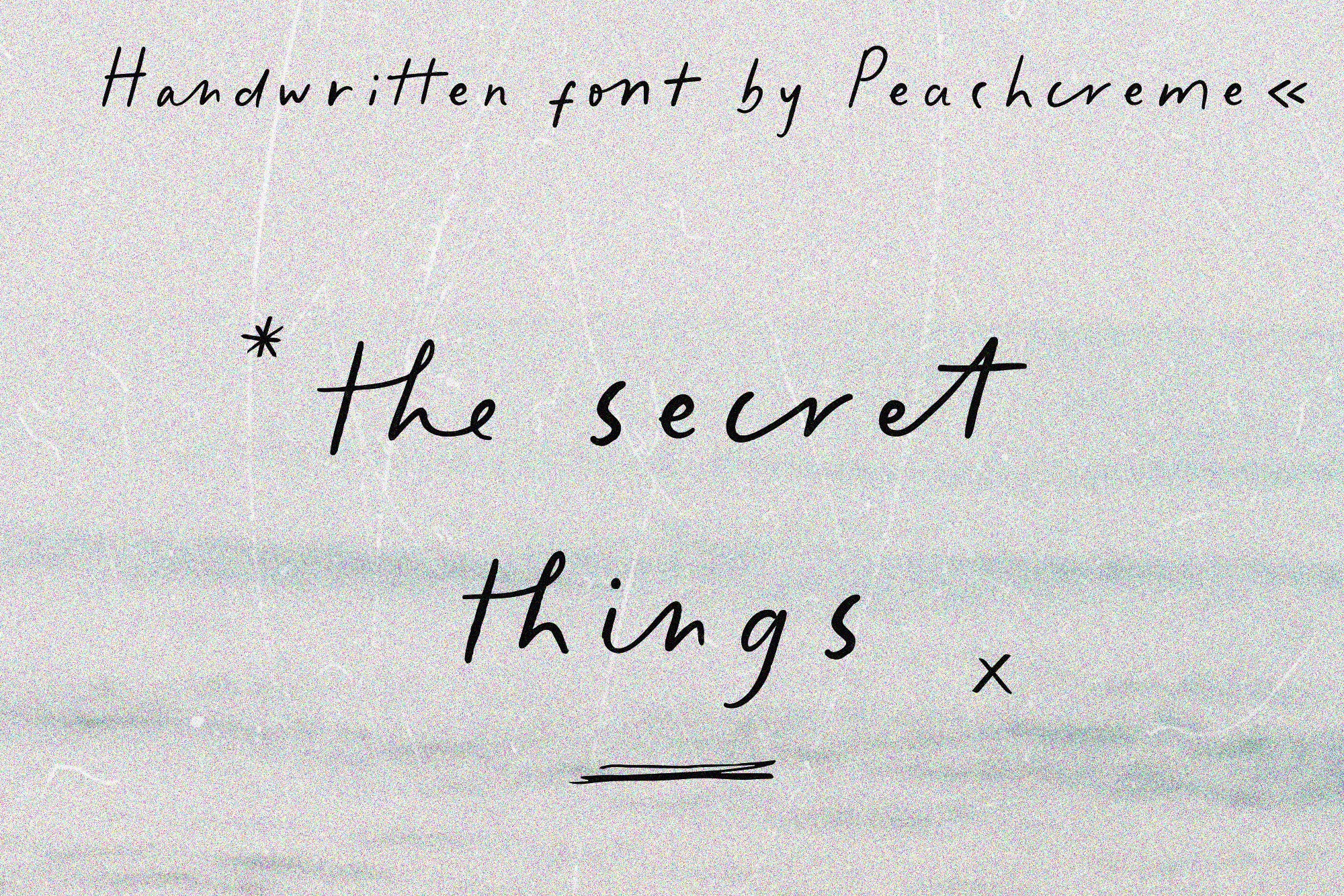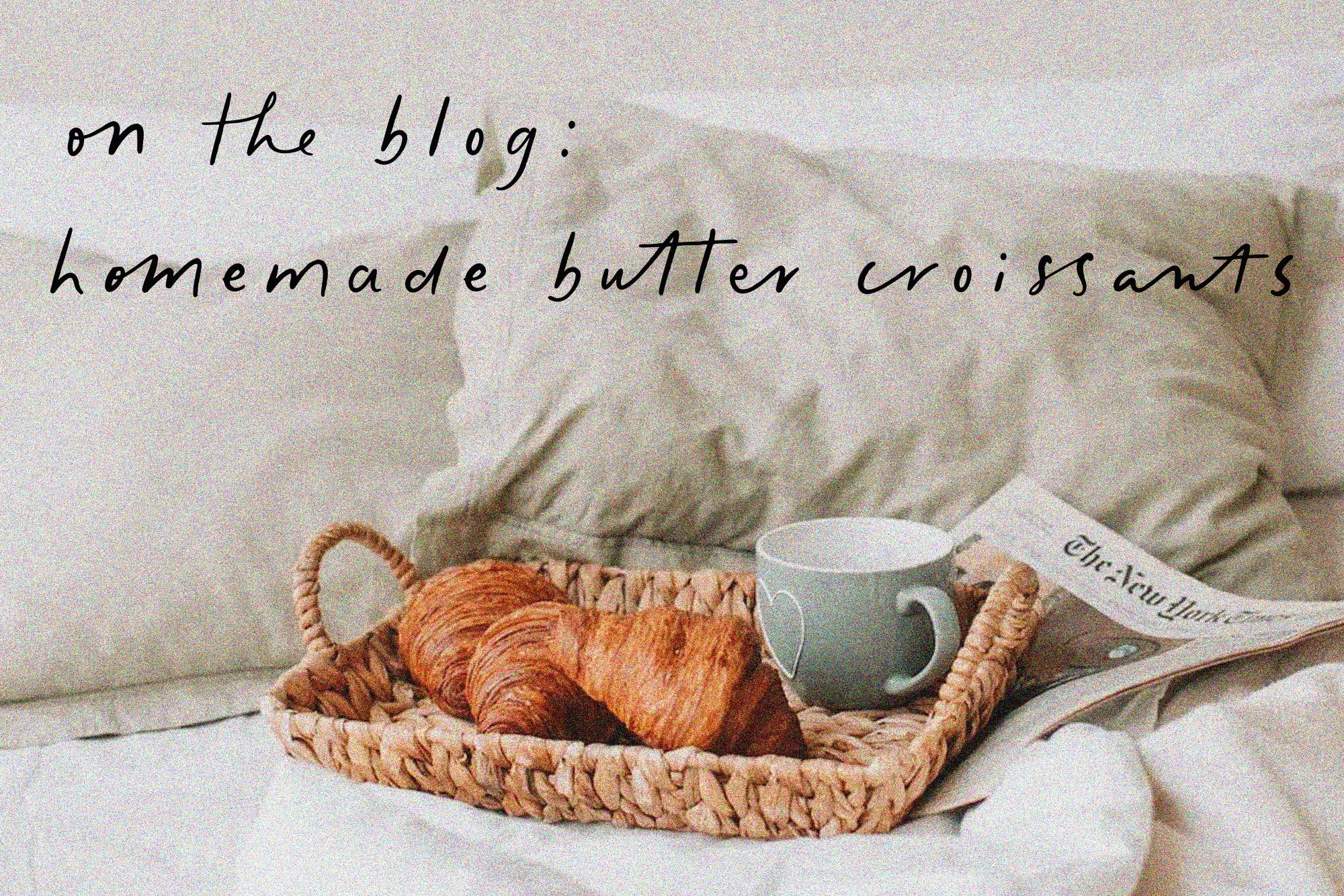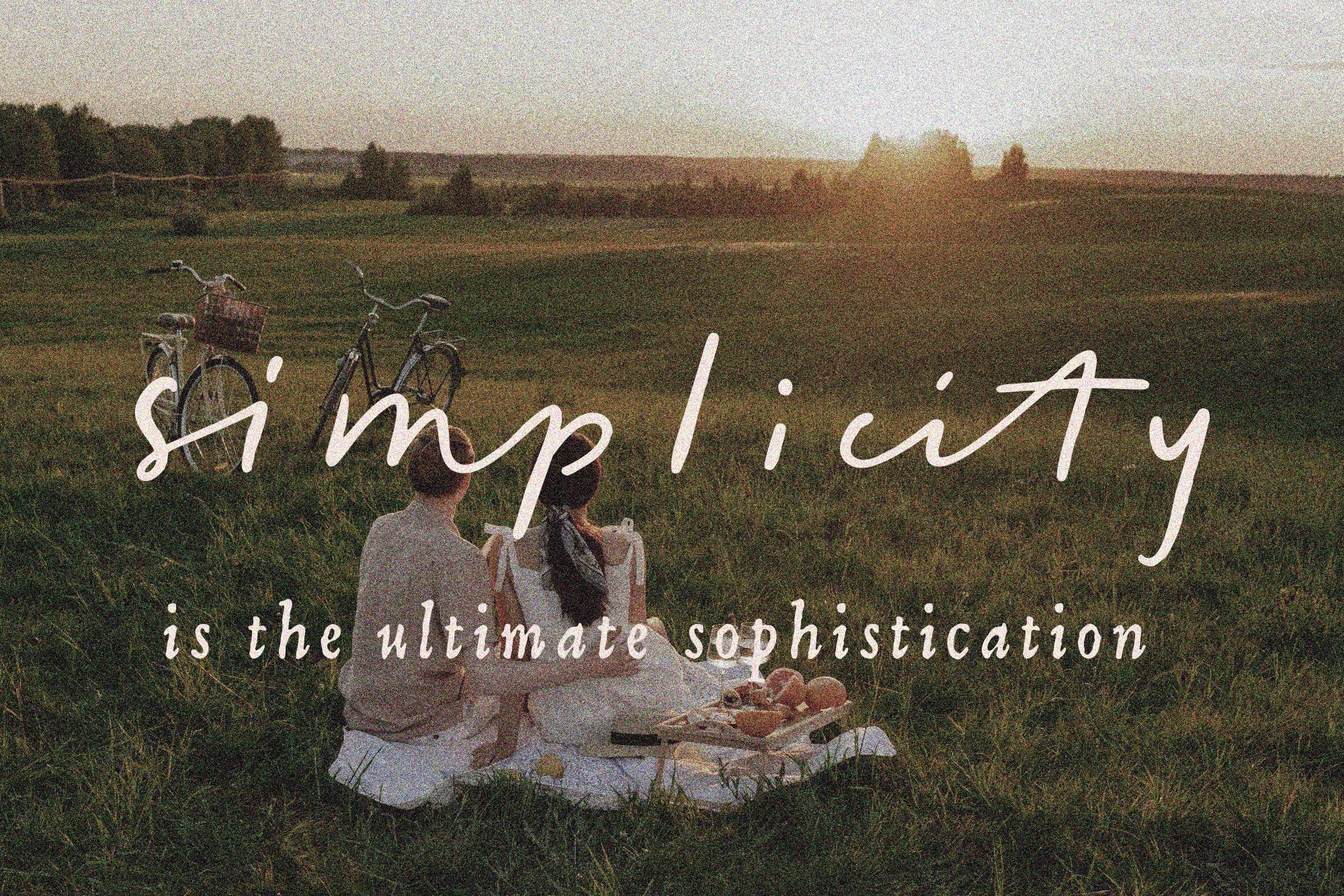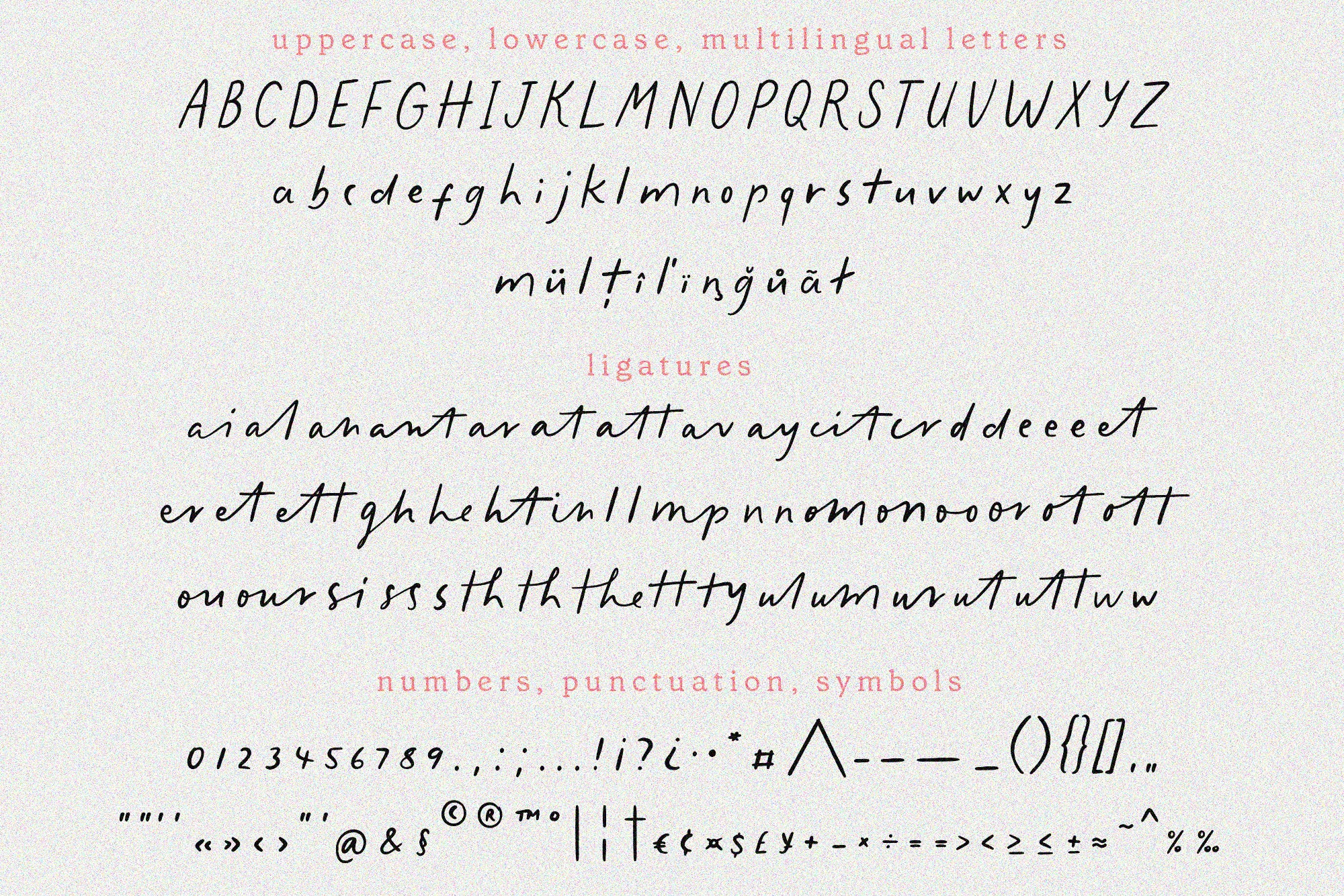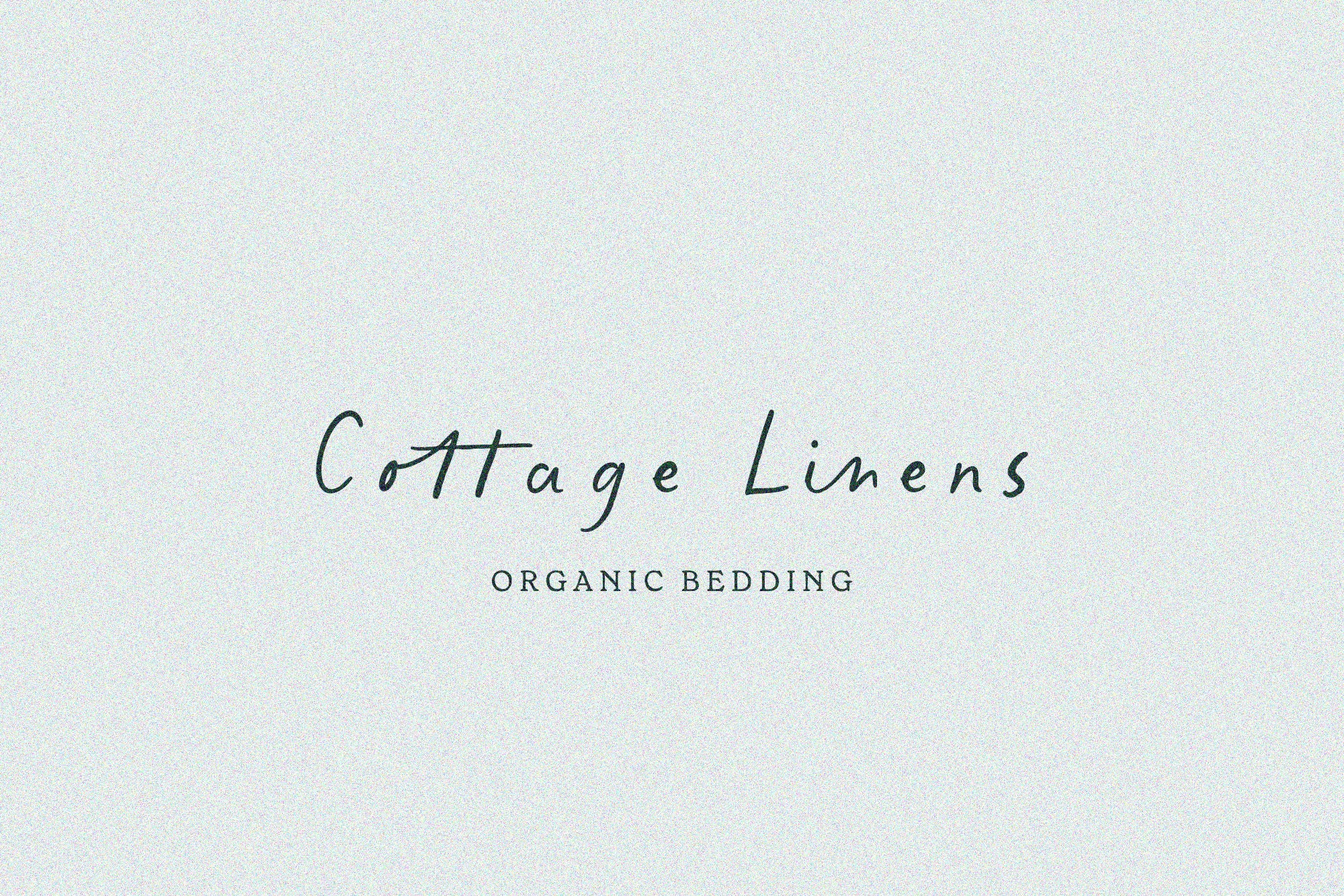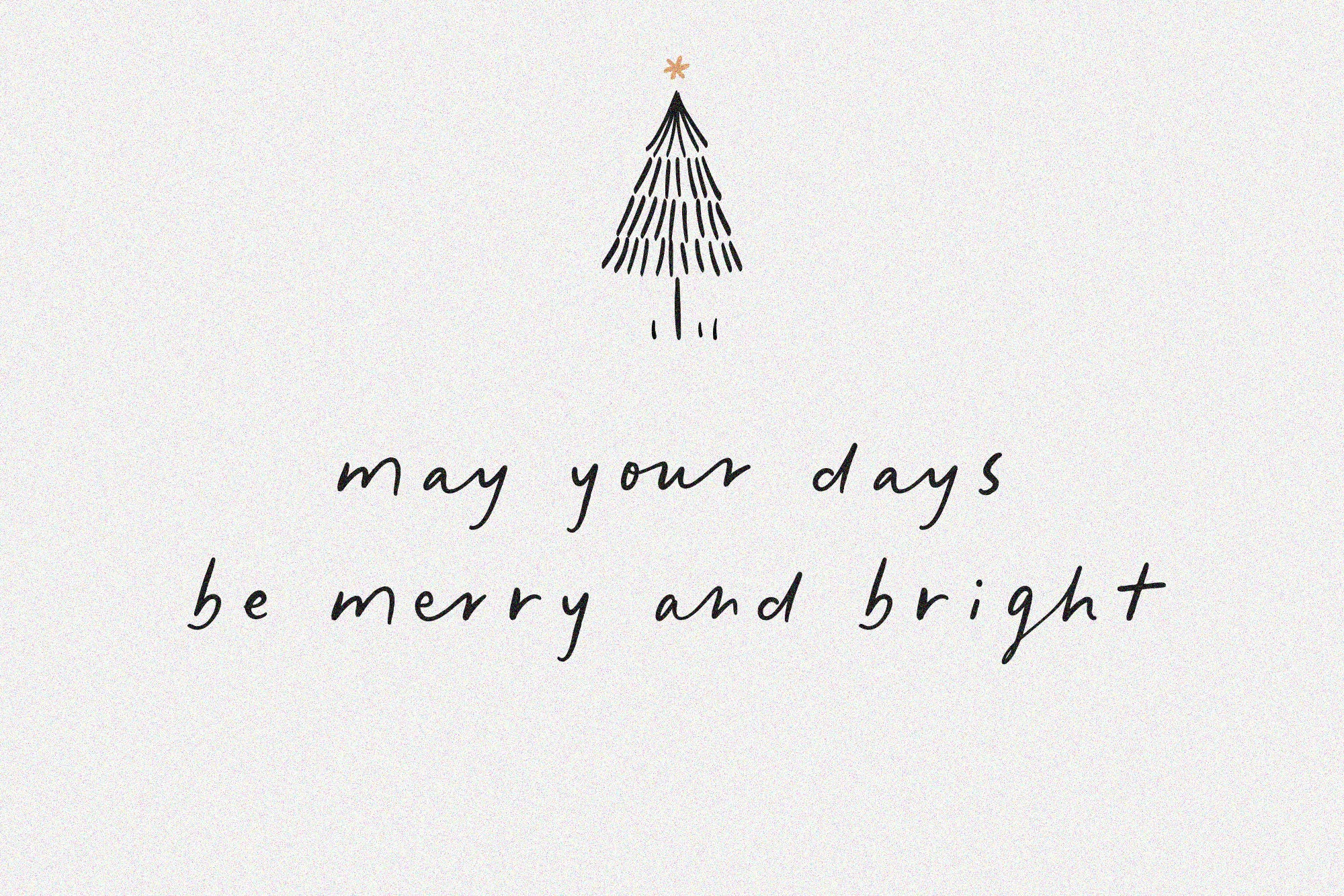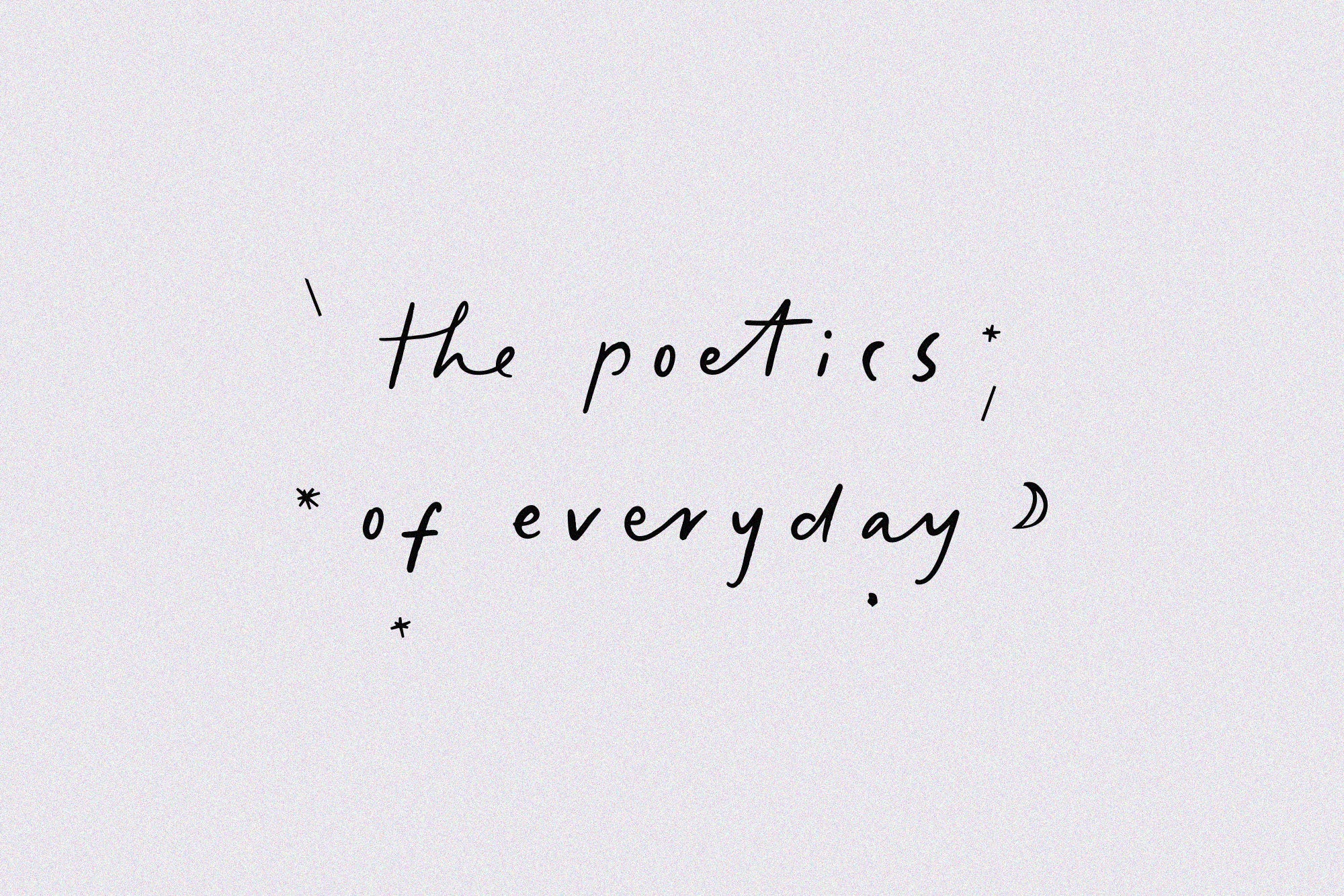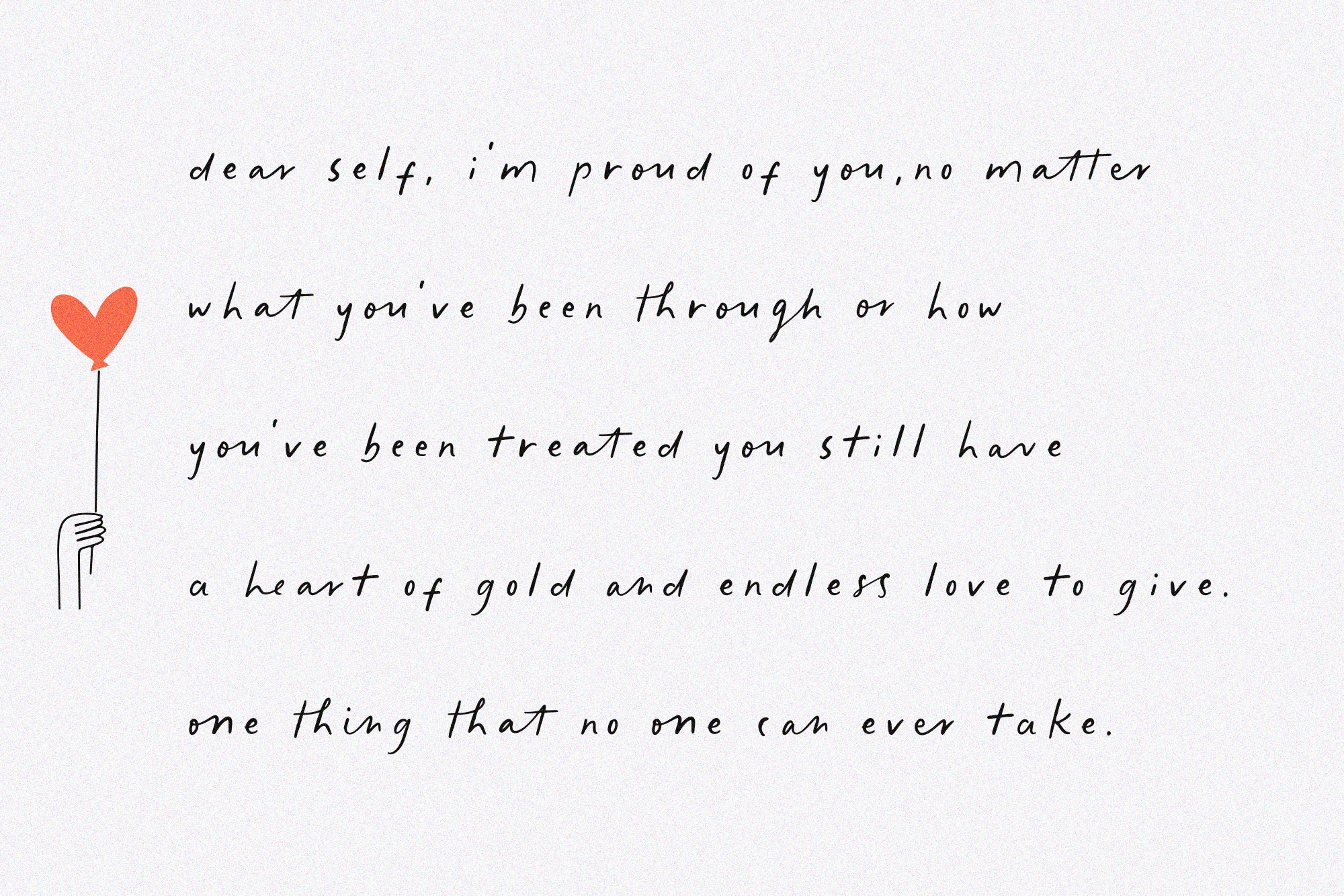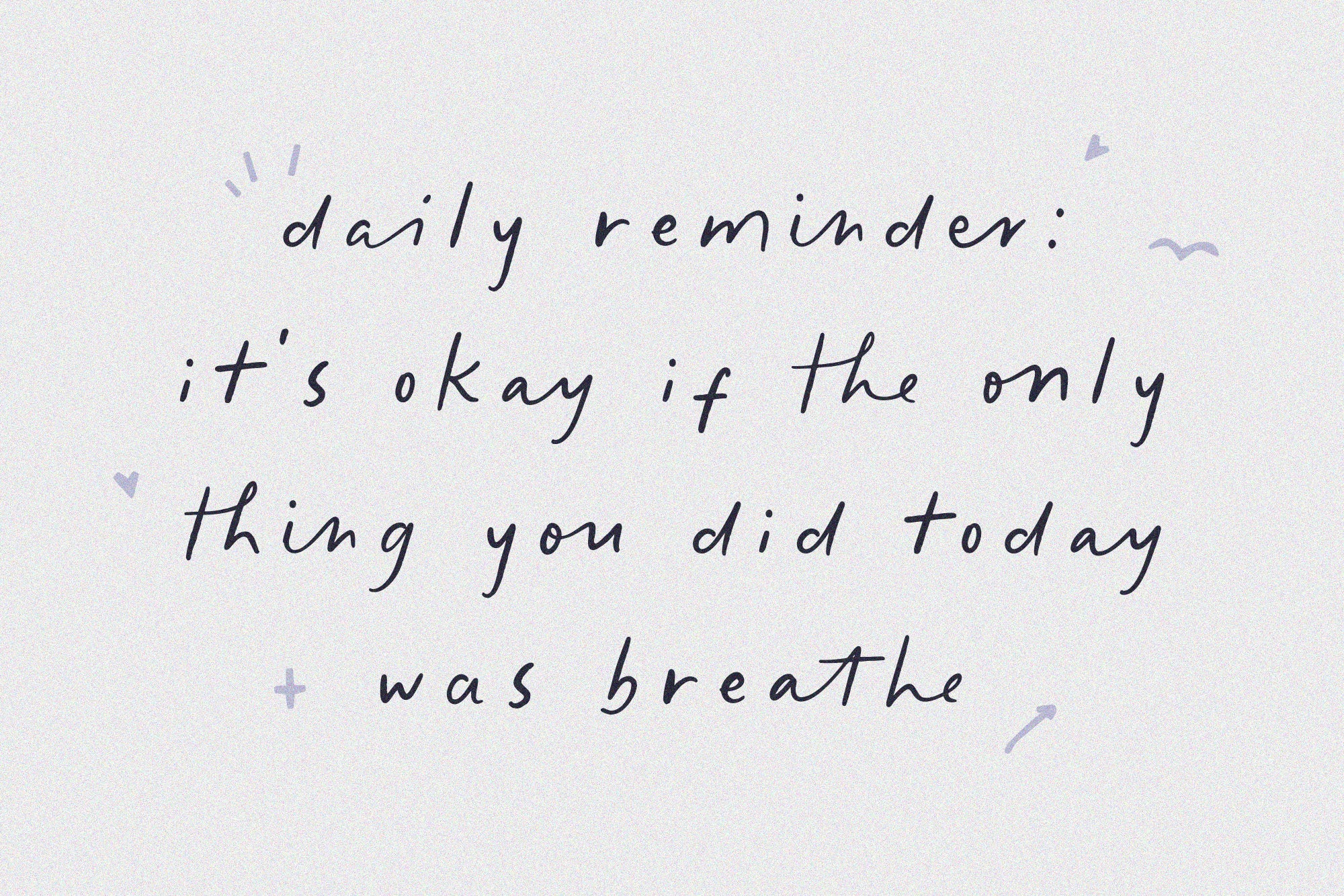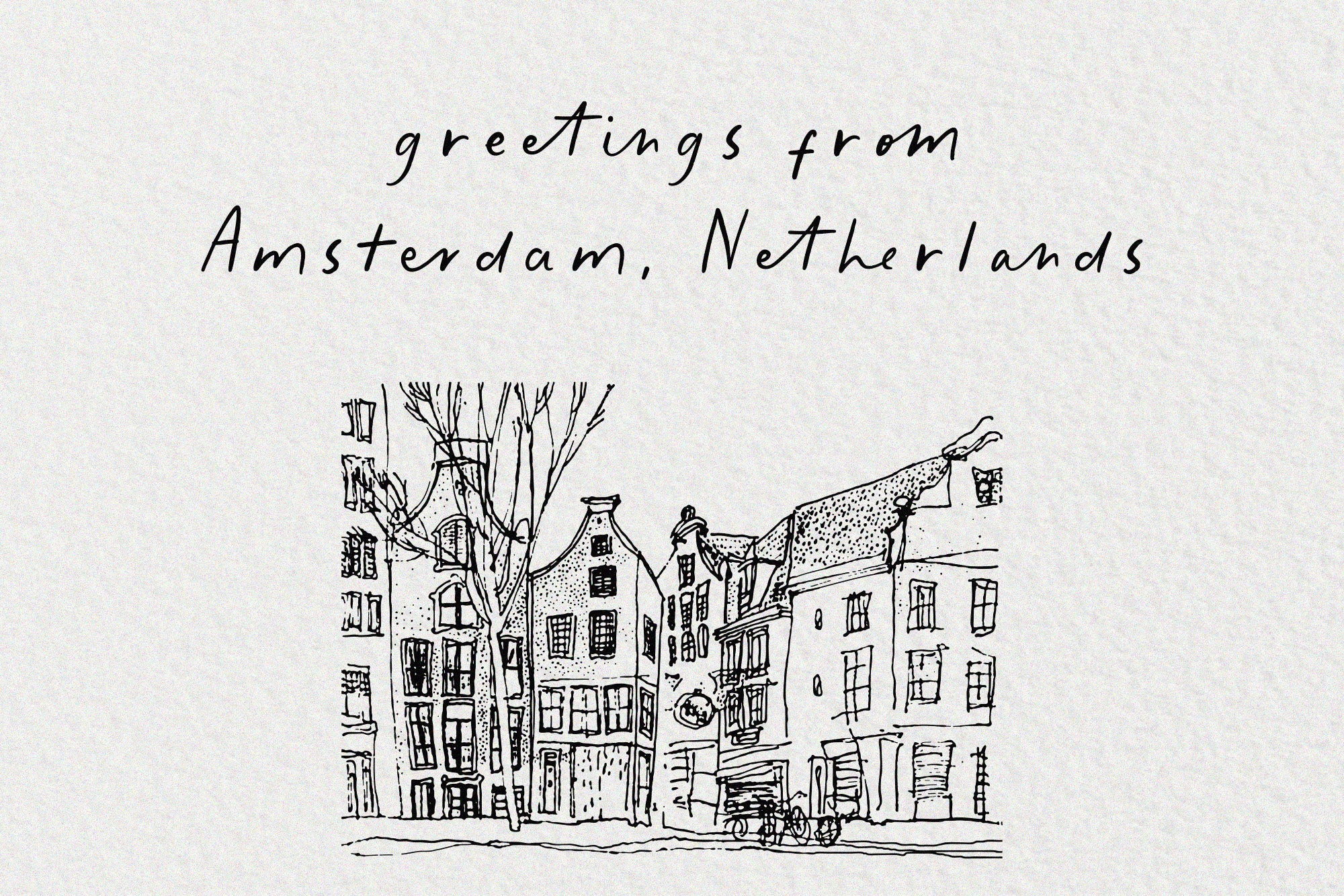
the secret things// casual font
Relaxed and unpretentious, "The Secret Things" script gives any design an instant dose of natural flair.
45 ligatures allow you to make writing that seems completely handwritten, not like it was made using a font.